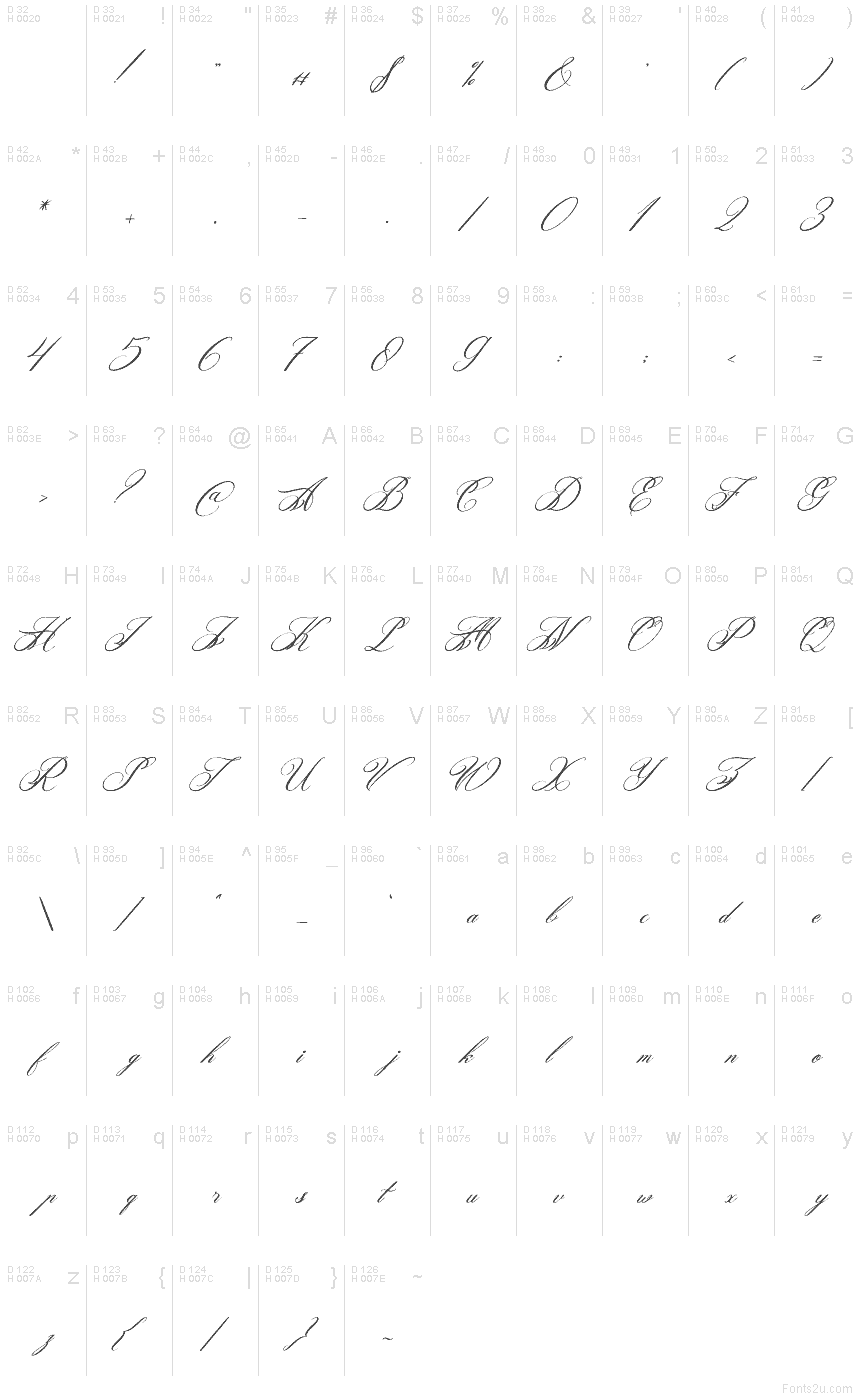
Aldyn Heart Italic
Aldyn Heart Italic font by Denustudios is a free calligraphy typeface that captures the feel of hand-penned ink on fine stationery. Its long, sweeping strokes and delicate hairlines look like they were drawn with a flexible nib, giving every word a sense of movement and quiet drama. The Aldyn Heart family brings a refined, romantic mood that’s elegant without feeling stiff, making it easy to set names, short phrases, or titles that truly linger on the page.
Using Aldyn Heart Italic, you can effortlessly elevate wedding invitations, save-the-date cards, event signage, boutique logos, product labels, and romantic quote graphics. This free font shines when given room to breathe in larger sizes, where the curves and loops can fully unfurl. For a balanced layout, pair it with a clean sans-serif for body text, letting Aldyn Heart handle the emotional, eye-catching words.